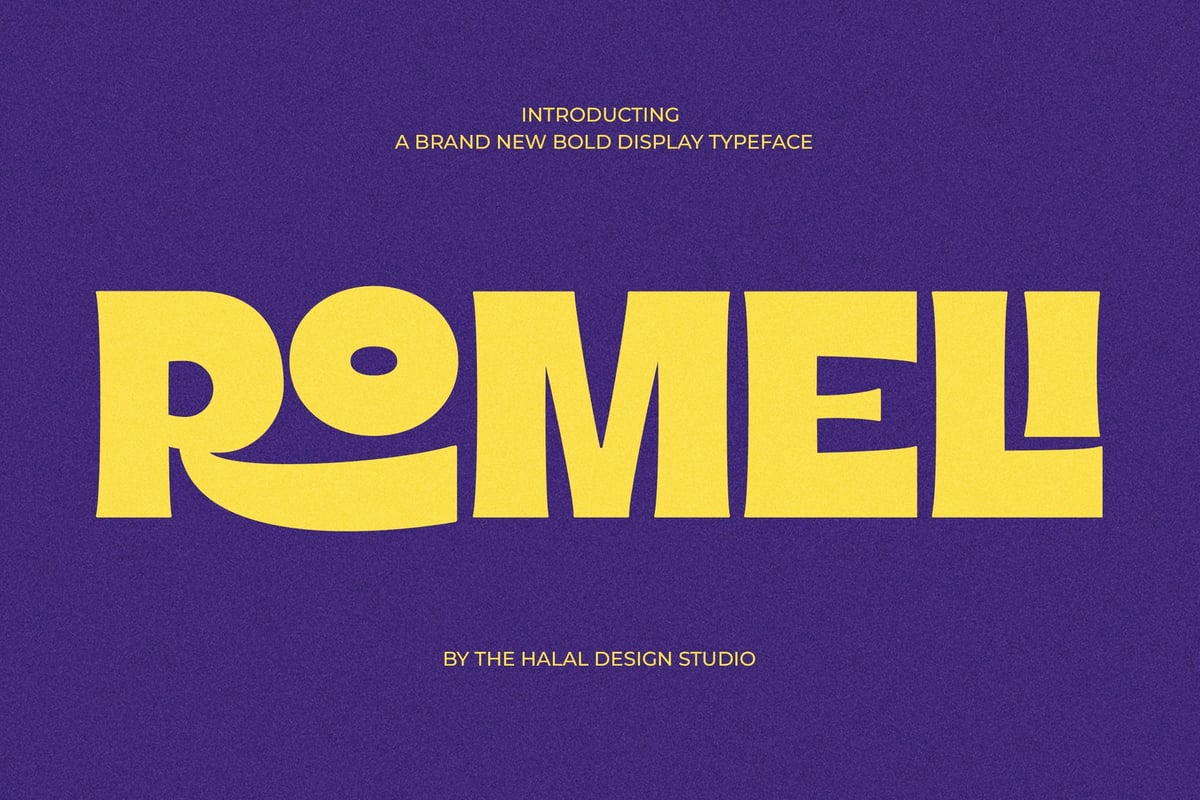
Romeli - Bold Display Typeface
Romeli is a chunky, handcrafted bold display typeface built to make your designs impossible to ignore.
With expressive letterforms, playful curves, and distinctive ligatures, Romeli brings raw energy and personality to any project. Whether you're designing bold brand identities, fun editorial layouts, eye-catching packaging, or standout marketing materials, this typeface delivers strong visual impact without sacrificing readability.
Its versatile character makes it equally at home in modern and retro-inspired work — from logos and posters to merchandise, social media graphics, and display headlines.
- Bold display style with chunky, playful, handcrafted letterforms
- Ligatures and alternates for enhanced typographic flexibility